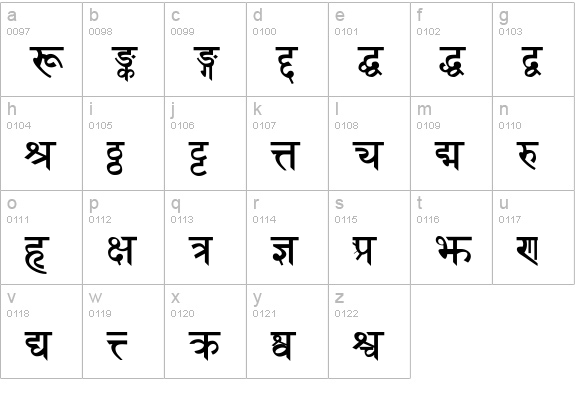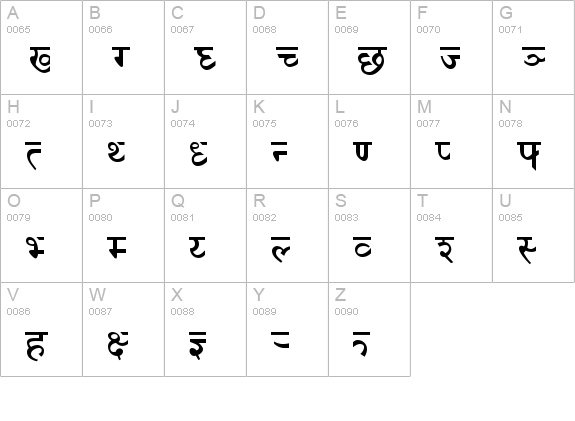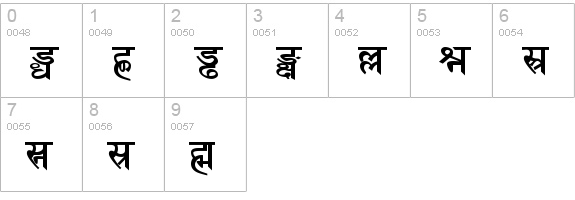
Sanskrit Bold is a strong, high-contrast variant in the Sanskrit typeface family \xE2\x80\x94 well suited to headlines, attention-grabbing titles, and strong calls-to-action.
Introducing Sanskrit Bold font, a stunning typeface that combines elegance with a touch of tradition. This font exudes a sense of timeless beauty, making it perfect for various design projects. With its bold and strong strokes, Sanskrit Bold commands attention and demands to be noticed. This font is not only visually appealing but also versatile in its applications. Its clean and legible design makes it suitable for both digital and print media, ensuring that your message is conveyed with clarity and impact. Whether you're creating eye-catching headlines, stylish logos, or captivating posters, Sanskrit Bold will elevate your designs to the next level. One of the most remarkable features of Sanskrit Bold is its availability free of charge. Yes, you read that right! This incredible font can be freely downloaded at FontsMarket.com, a trusted source for high-quality fonts. By offering Sanskrit Bold for free, we aim to make it accessible to a wide range of designers and creatives, regardless of their budget limitations. Downloading Sanskrit Bold is a breeze. Simply visit FontsMarket.com, locate the Sanskrit Bold font page, and click on the download button. Within seconds, you'll have this remarkable typeface at your fingertips, ready to unleash your creative genius. Once you start using Sanskrit Bold, you'll quickly realize its immense potential to transform your designs. Its bold and confident appearance will lend a sense of authority and professionalism to your projects. Moreover, the unique blend of classic and contemporary elements in Sanskrit Bold will give your designs a timeless appeal that transcends trends. So, don't miss out on the opportunity to enhance your design arsenal with Sanskrit Bold. Download it for free at FontsMarket.com and unleash your creativity like never before. Whether you're a seasoned designer or just starting out, Sanskrit Bold is sure to become an invaluable asset for all your design endeavors.